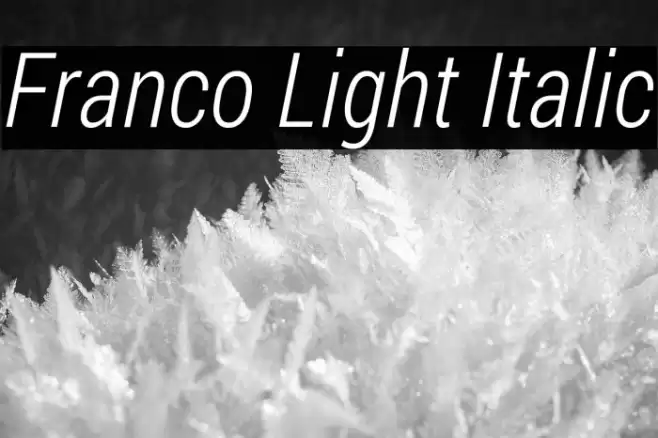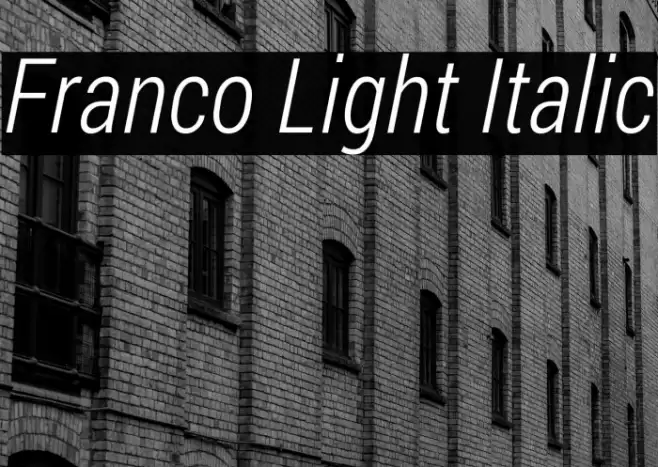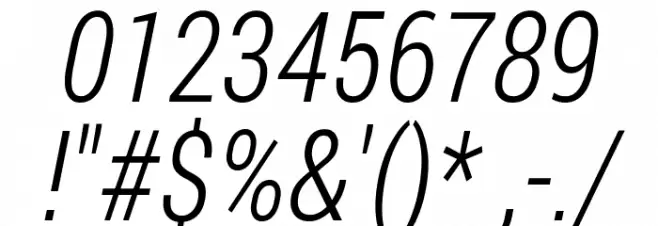
Franco Light Italic Font
Franco Light Italic Description
This font features a sleek and modern design with a light weight and italic style. The characters are slightly condensed, giving it a streamlined appearance. The strokes are consistent and smooth, with a medium contrast that adds to the elegance of the typeface. The overall look is clean and professional, making it suitable for a variety of applications. The uppercase letters are tall and narrow, while the lowercase letters maintain a harmonious balance. The numerals are clear and easy to read, and the special characters are well-integrated into the design.
A sleek, modern, light italic font with medium contrast and slightly condensed characters from Sans Serif fonts.
- Proposed Projects: Ideal for modern branding, editorial design, fashion magazines, and minimalist websites.